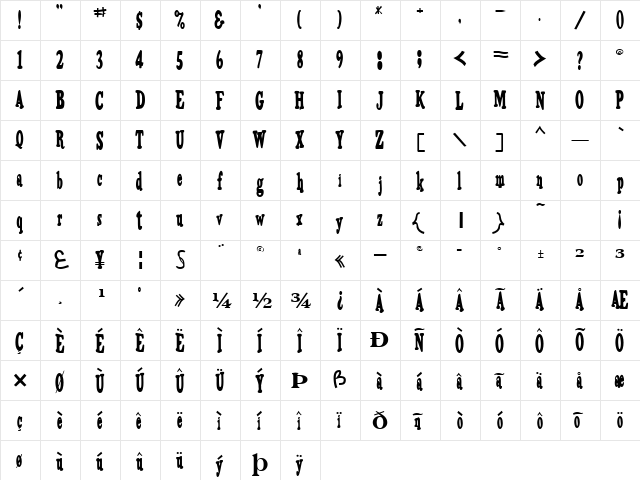
Trojan Regular
Design Context for Trojan Typeface
Trojan is a composed and adaptable typeface that performs quietly and consistently across a wide range of design contexts.